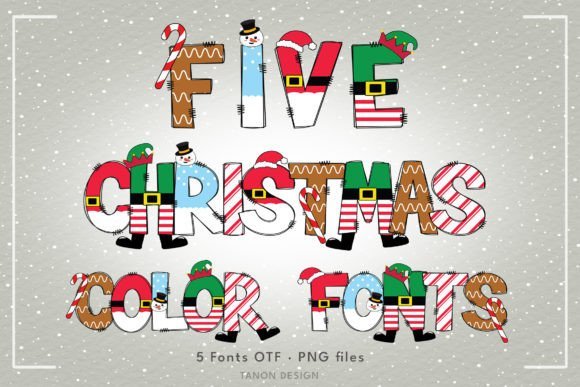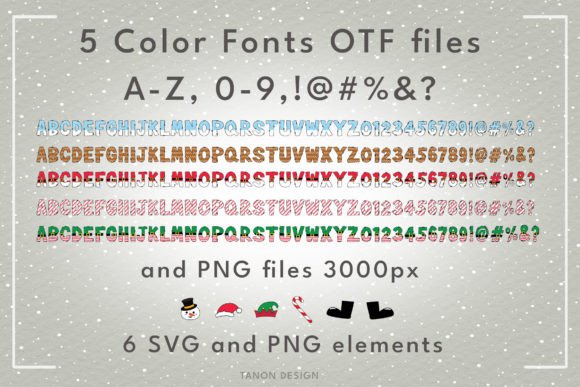
The Magic of Christmas Font: Bringing Holiday Cheer to Your Designs
Enter the Christmas Font, a delightful typography solution designed specifically for the holiday season. This font is a must-have for any designer looking to add a touch of festive flair to their projects. With its bold, playful letters, the Christmas Font is perfect for creating eye-catching designs that will spread holiday cheer. Whether you’re working on a t-shirt design, a mug, or a digital project, this font is sure to bring a smile to your face and make your designs stand out.
Christmas Font Key Features
- Unique Characteristics: Features festive and playful ornaments, swashes, and flourishes to add a touch of holiday magic to designs.
Christmas Font Review
Overall, I found the Christmas Font to be a festive and cheerful addition to any holiday design project. ✨ The font’s bold, playful style is sure to get users in the mood for the season. ✨ The font’s versatility allows it to be used in a variety of applications, from greeting cards to social media posts.
- ⚠️ Not ideal for body text: Due to its bold, playful style, the font is not well-suited for use as body text, as it can be difficult to read in larger quantities.
Overall, I would recommend the Christmas Font for designers looking to add a touch of holiday cheer to their projects. While it may have some limitations, its versatility and ease of use make it a great choice for a variety of applications.
For the most part, the Christmas font is best used for holiday-themed designs, such as greeting cards, gift tags, and social media graphics.
Tips include using the font in combination with festive colors and graphics to create a cohesive look.